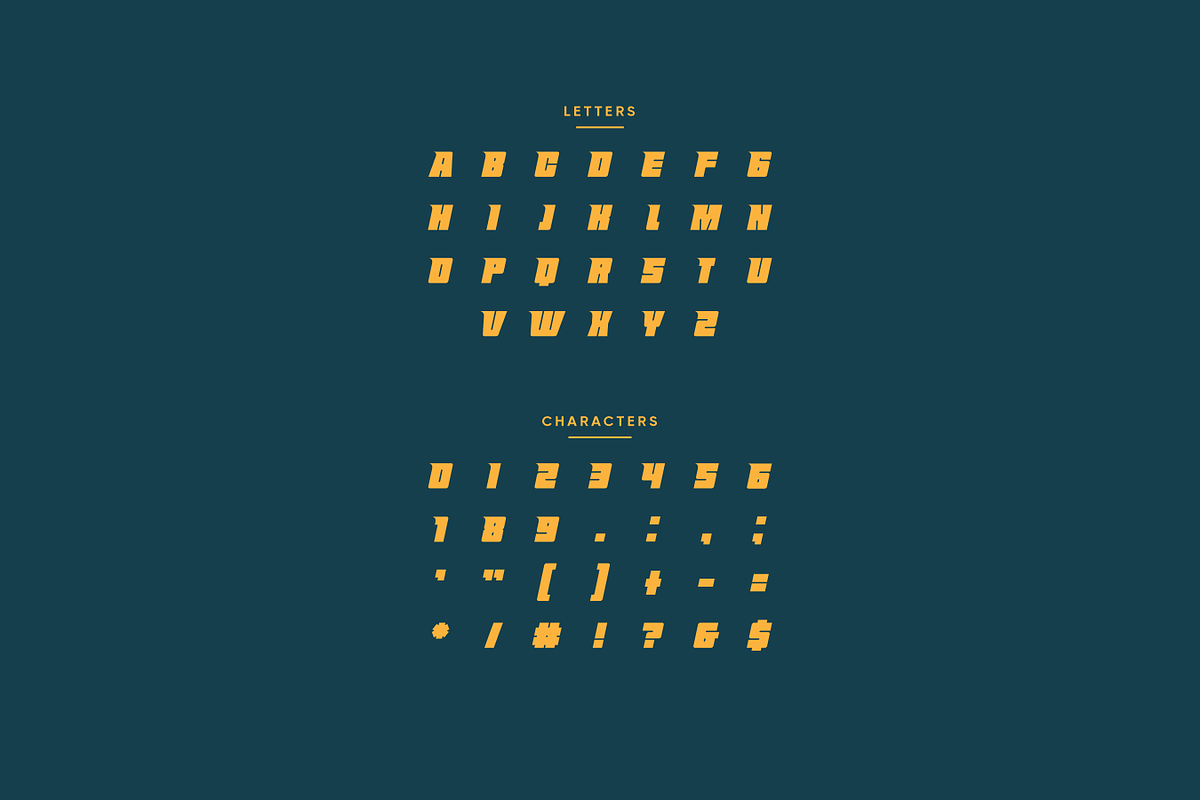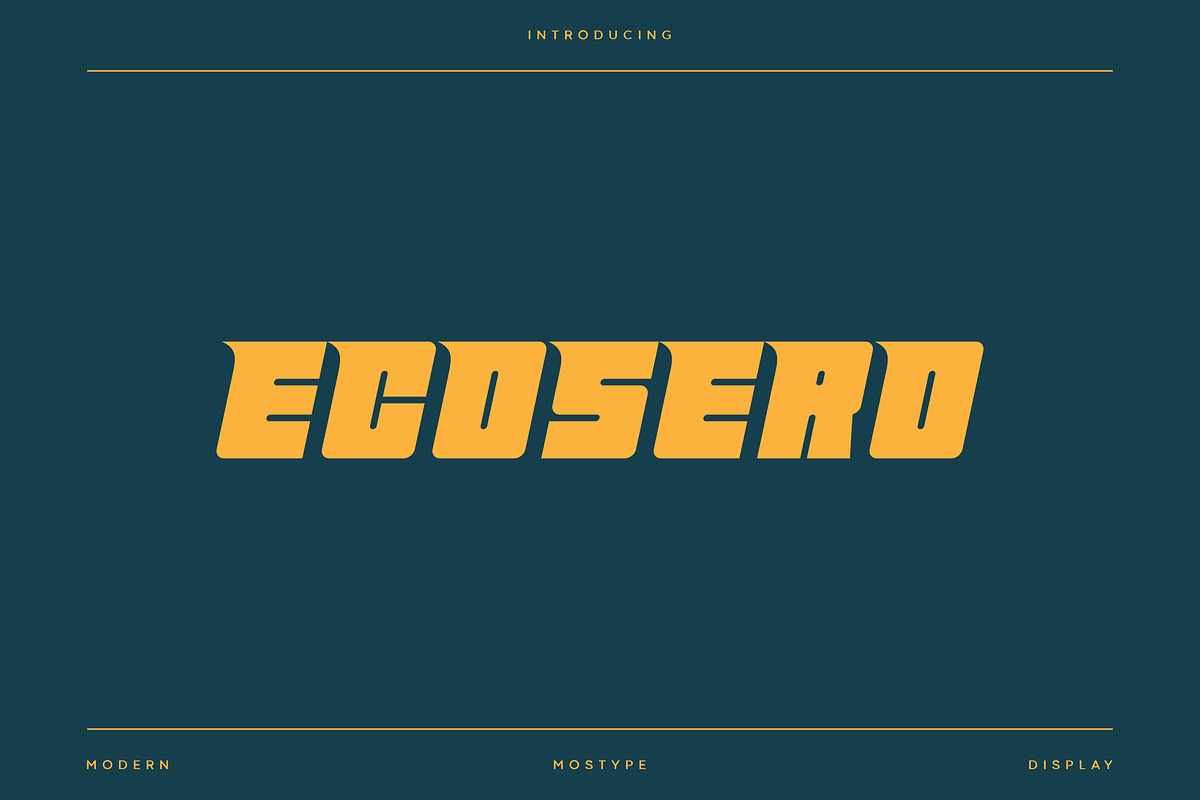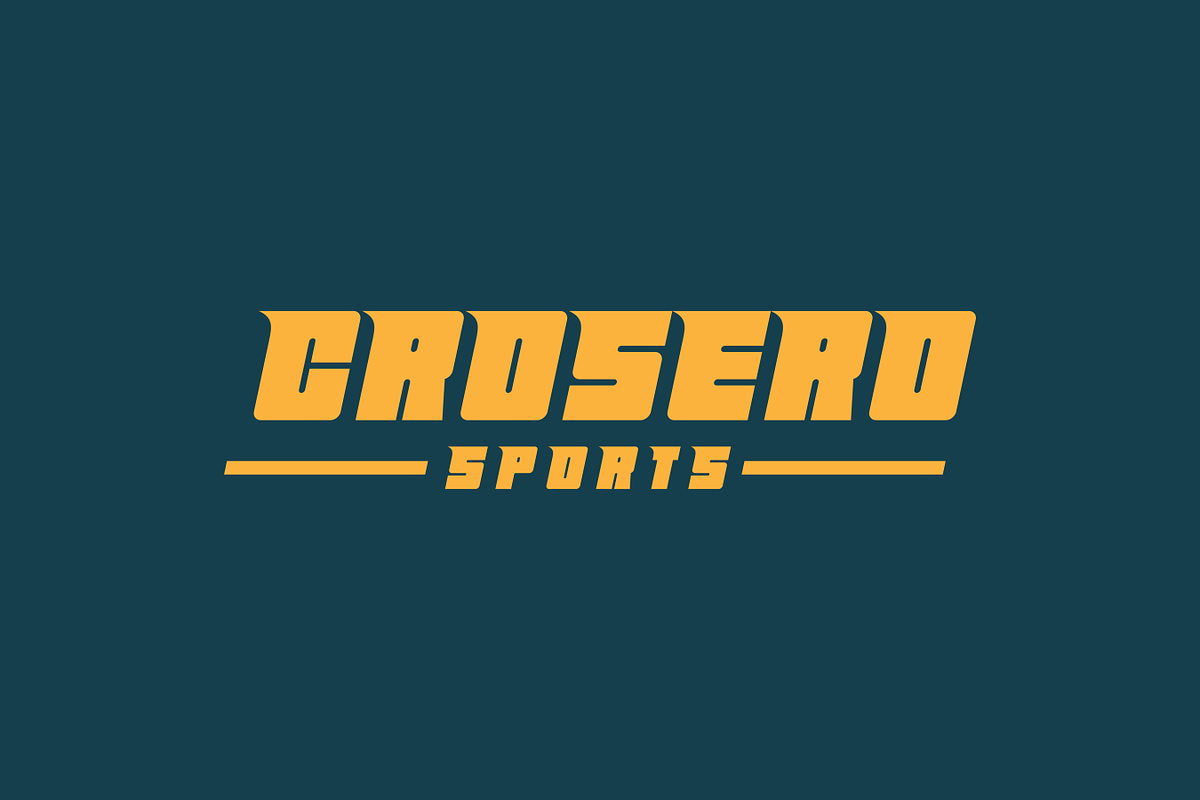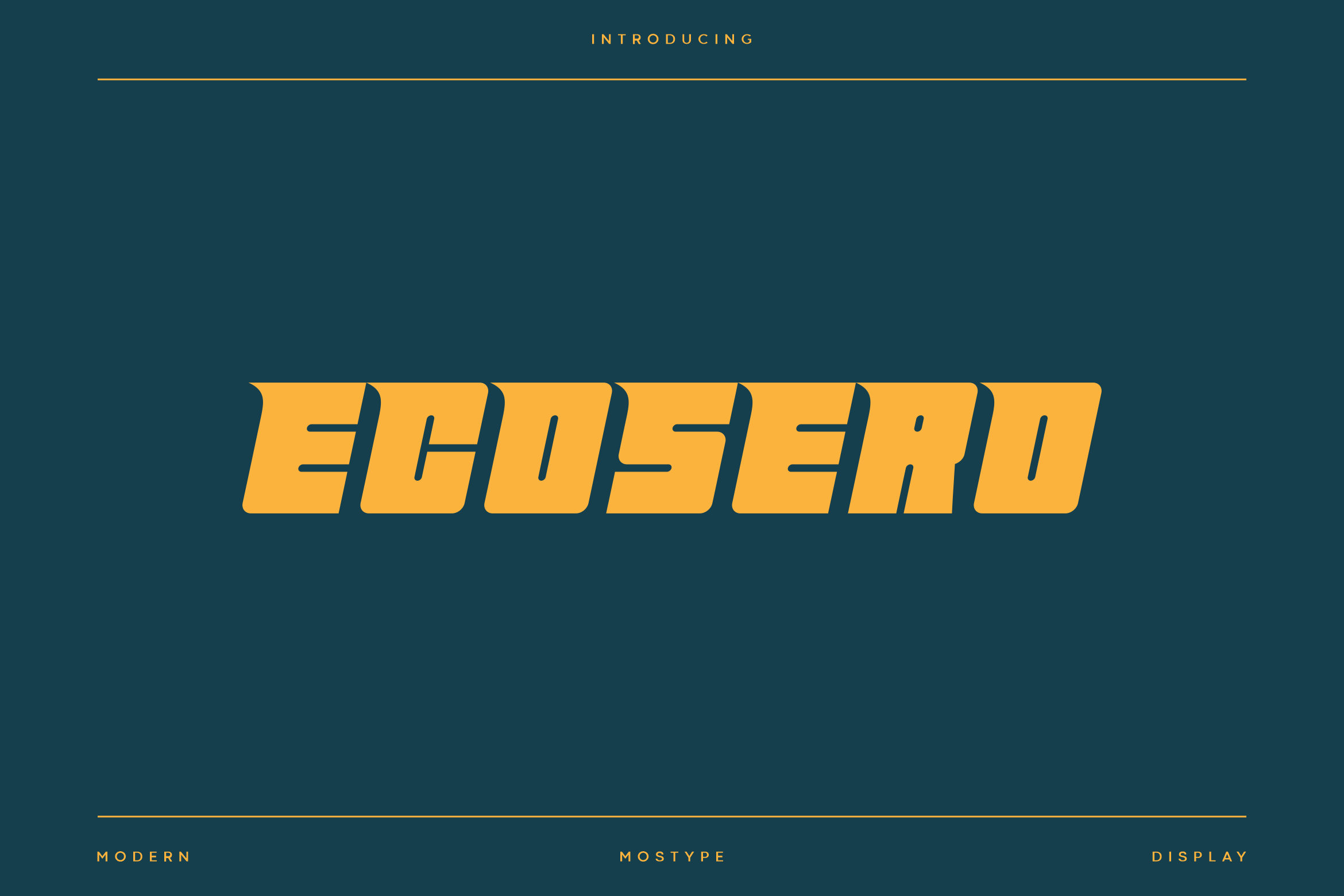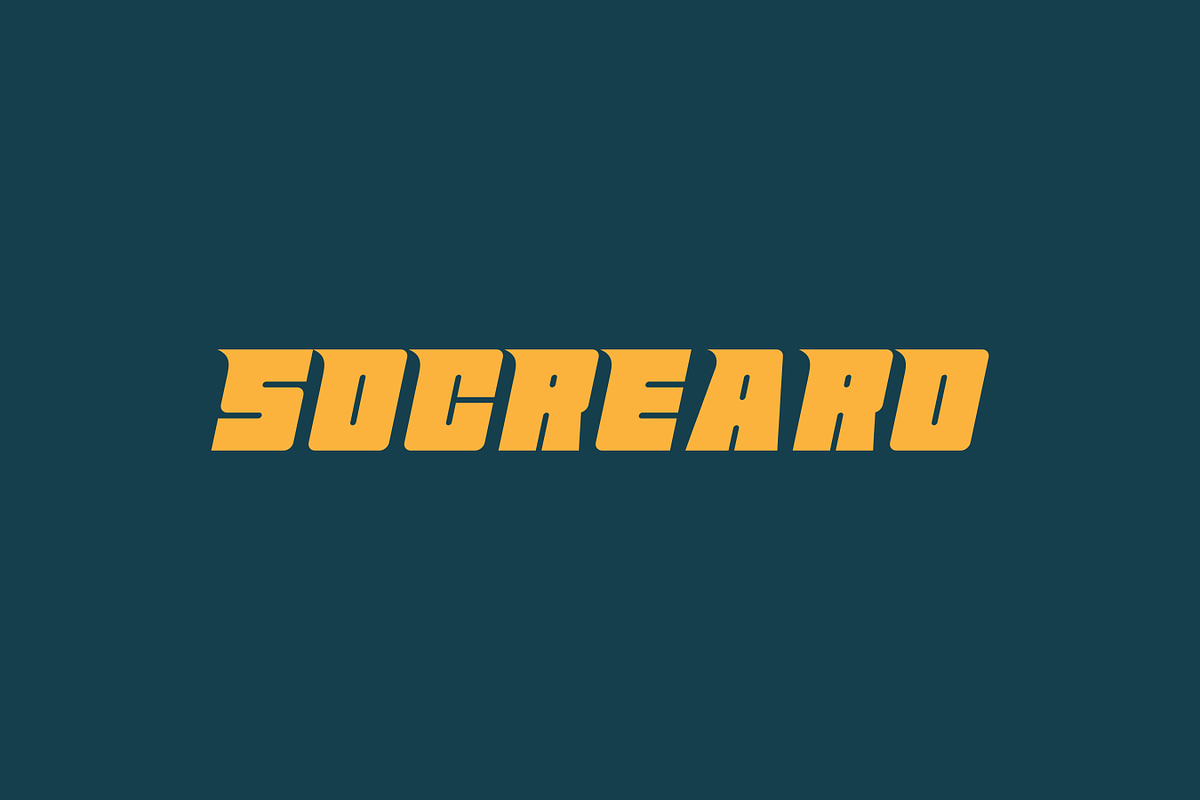
Ecosero - Modern Sport Typeface
Ecosero is a modern display font built specifically for sports branding, with minimalist and elegant style. This font comes with sophisticated, modern and fresh all-caps style, making it more timeless. Ecosero will make your design more memorable, it’s perfect adding this font for logo, branding, poster, magazine, digital ads, tech, action sport and future themes.